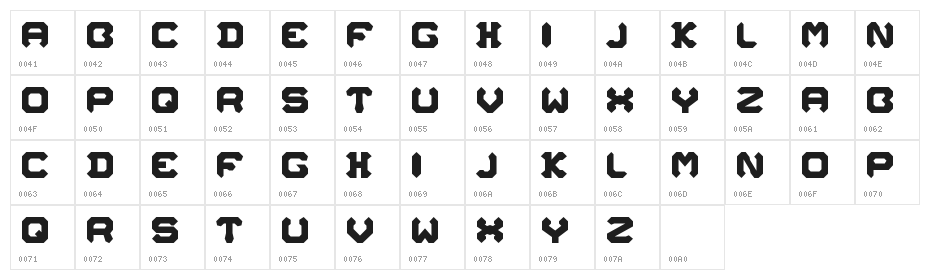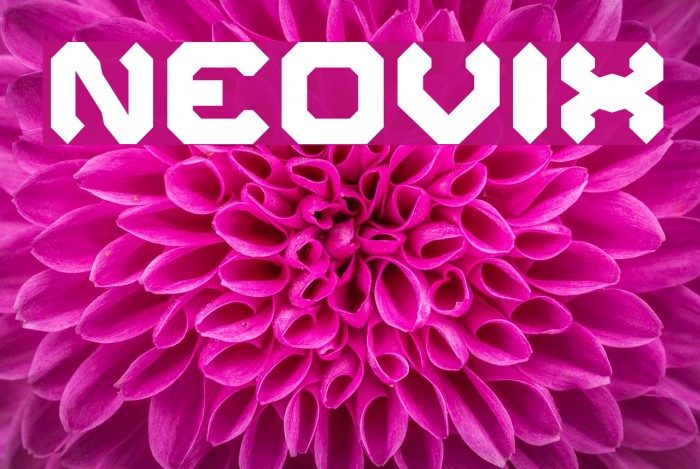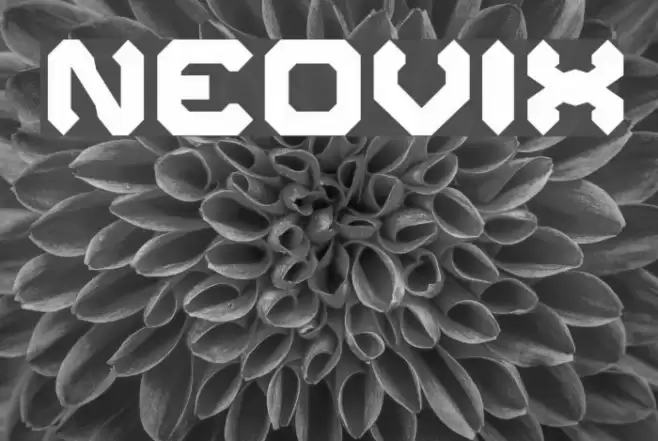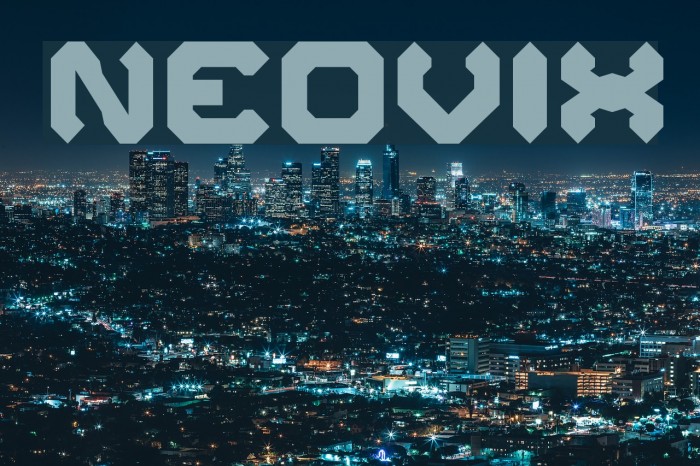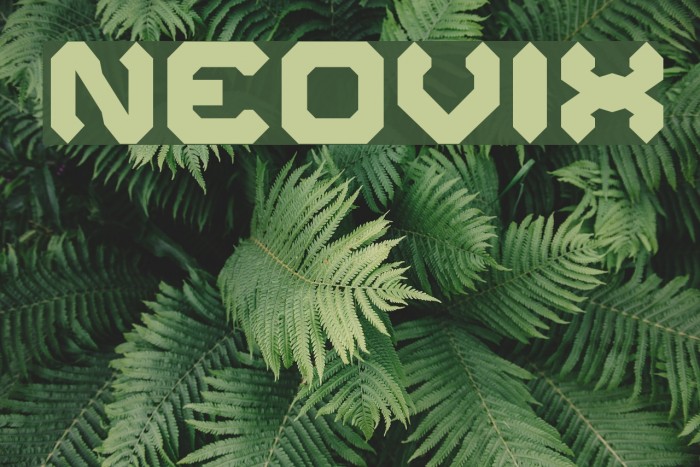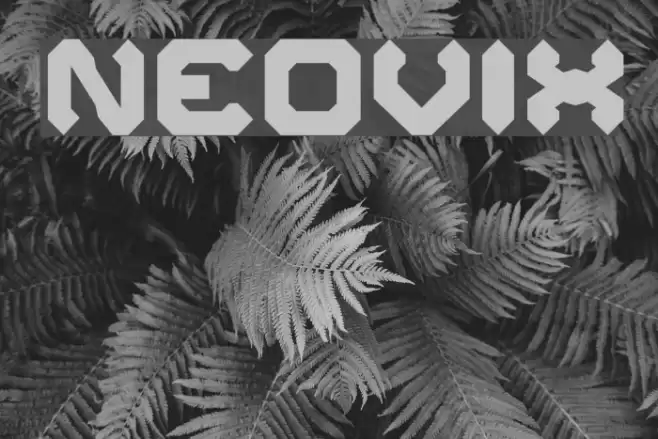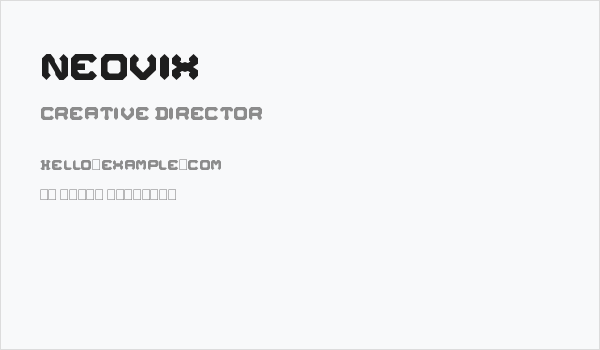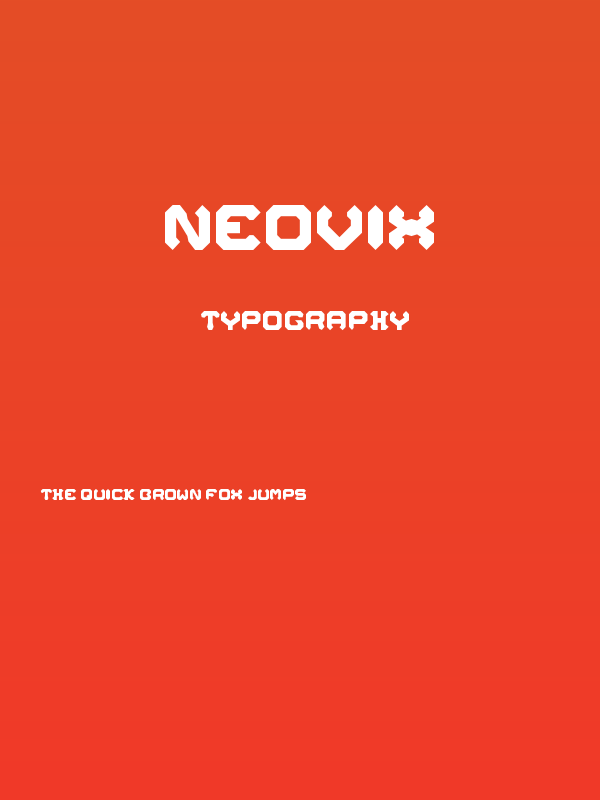
Neovix Font
Neovix Description
This font features a bold, geometric design with sharp angles and a strong presence. The uppercase letters are uniform in height and width, creating a cohesive and structured appearance. The characters exhibit a futuristic and industrial style, with thick strokes and minimal contrast. The absence of curves and the emphasis on straight lines give it a modern and edgy look. The font is highly legible and makes a strong visual impact, suitable for attention-grabbing headlines and display purposes.
| Proposed Projects | Ideal for branding, posters, video game graphics, and sci-fi themed projects. |